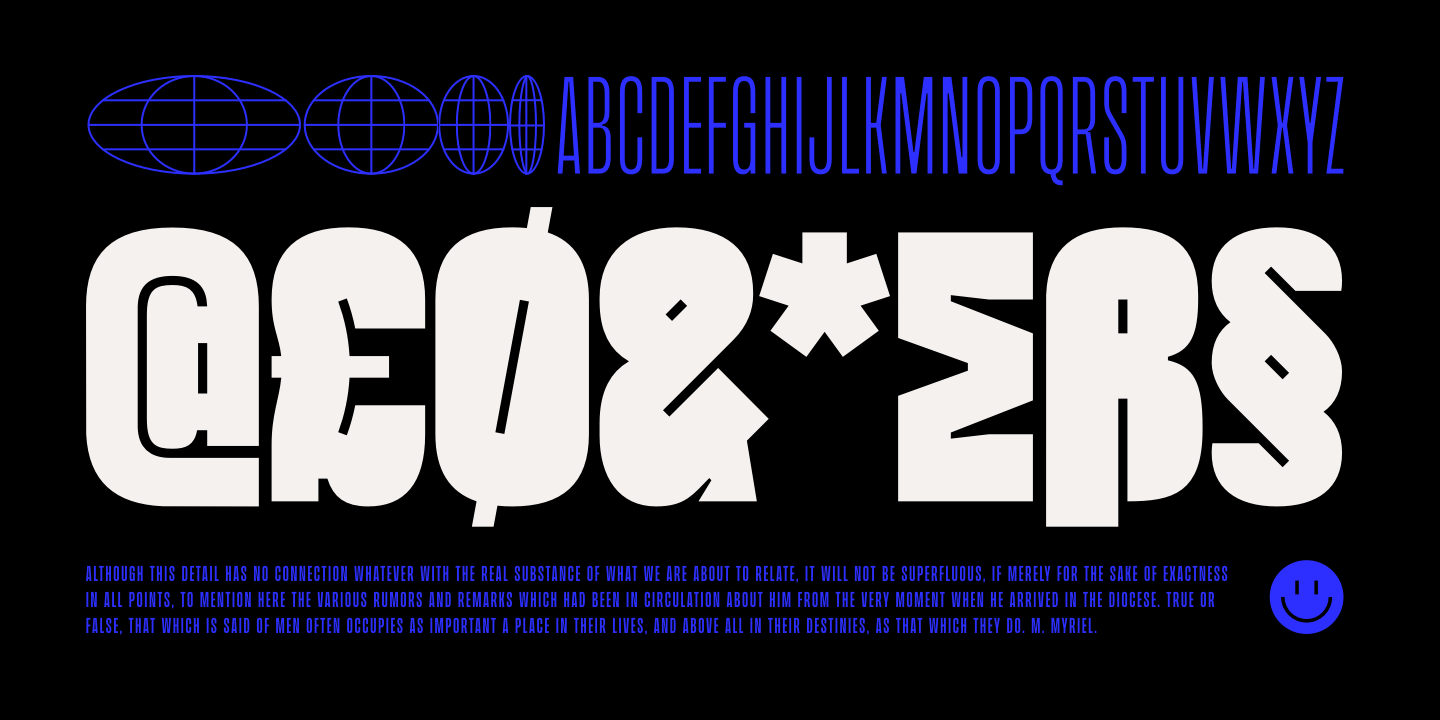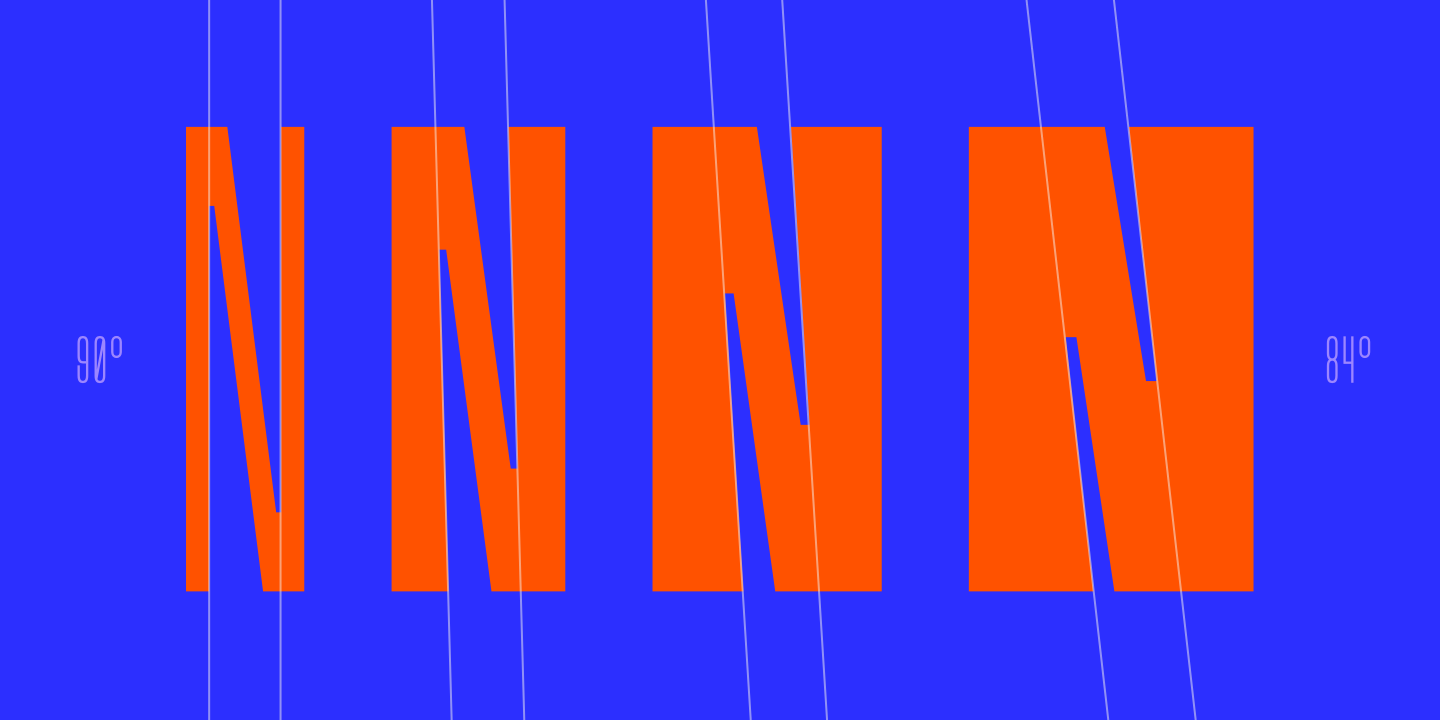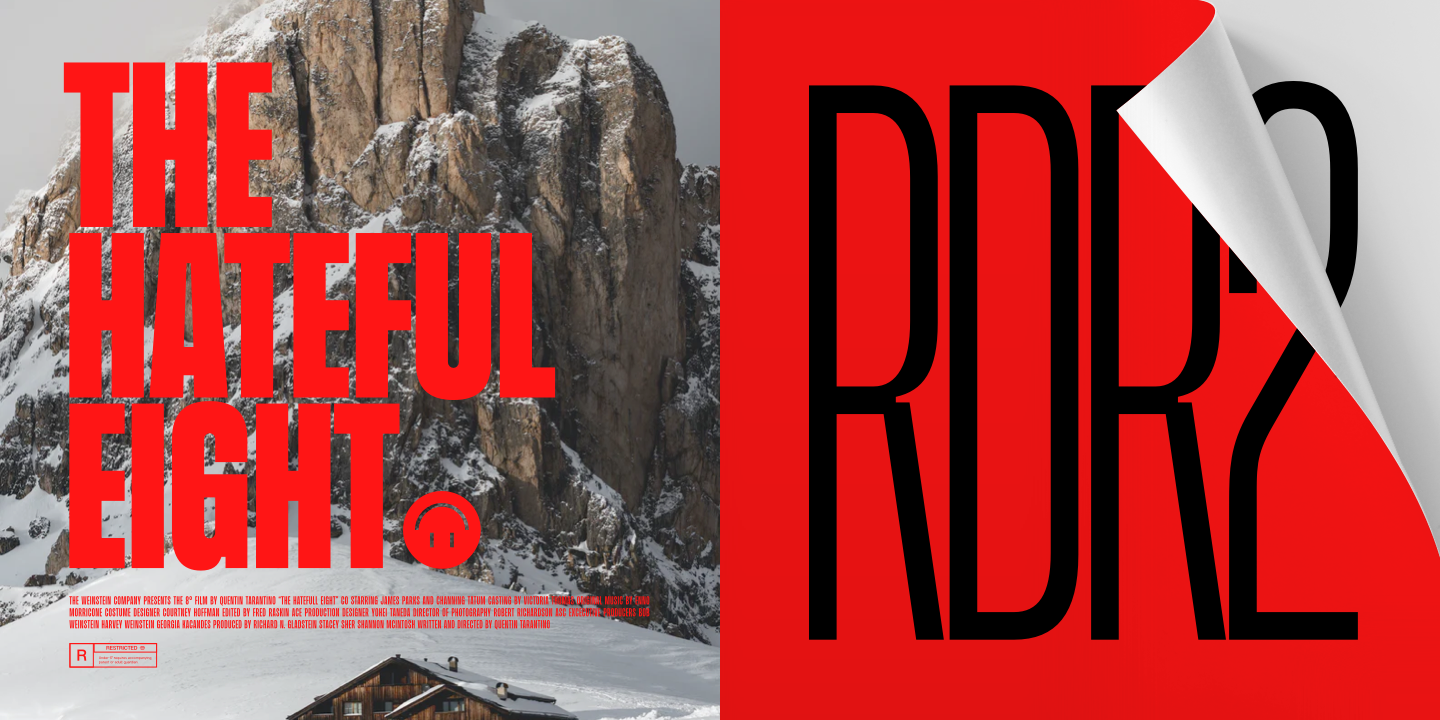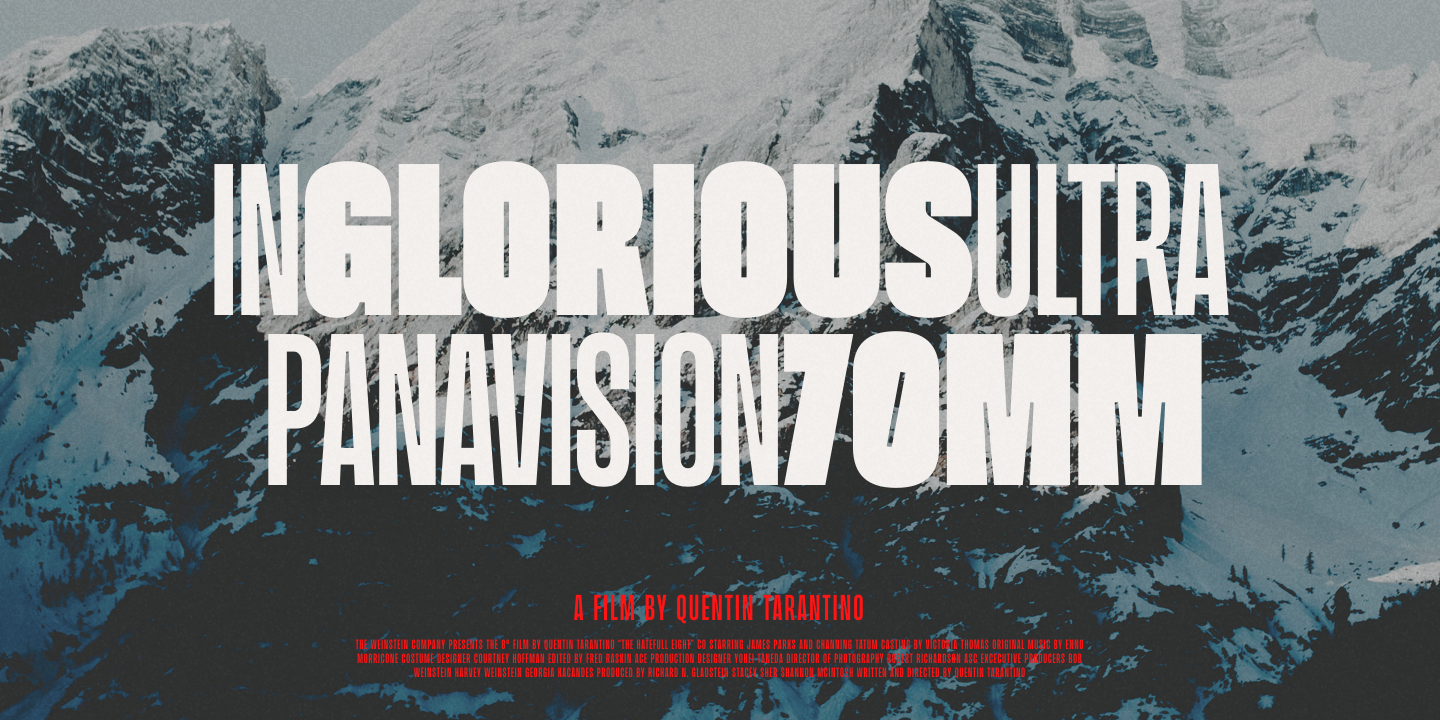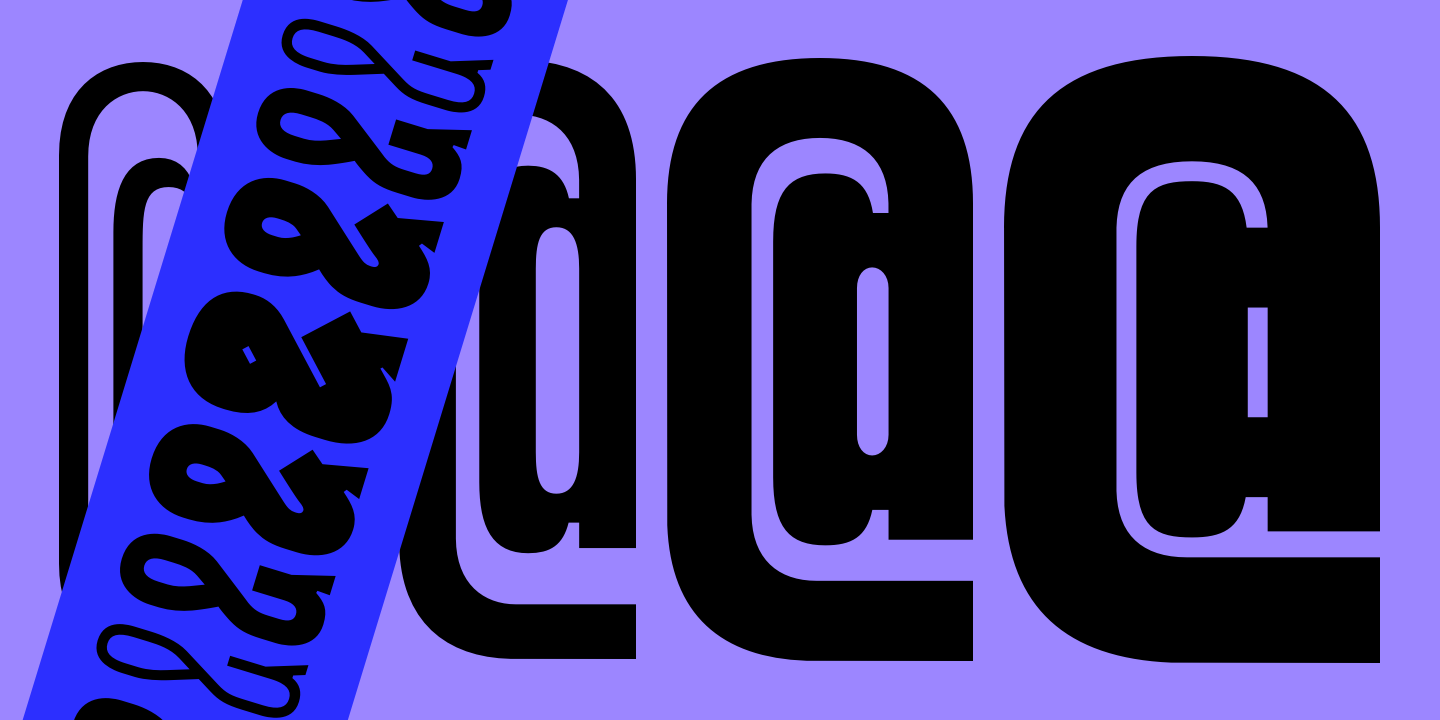
Beni is a bold & strong sans serif font family beautifully crafted to perform in short headlines in posters or contemporary interface design. Each character has been optically adjusted for maximum effect in the space between; as such, this is a strong contender for movie posters, titling, album artwork, and any design project that needs a clean sans serif that makes an impact wherever it is applied.
This type family is available in four unique weights that stand well apart from one another in visual style. Beni Light is the runway model of the family, standing with a narrow posture and towering height. It’s a fantastic choice for conveying a message in a limited horizontal space.
Beni Regular and Beni Bold are shorter in stature but both pack a punch, carrying bold strokes that speak with confidence and offer great legibility. The heaviest of the heavy, Beni Black is the super-bold, go-to type design for projects that need an impossibly strong type design at the helm.
Beni extends multilingual support to Basic Latin, Western European, Euro, Catalan, Baltic, Turkish, Central European, Pan African Latin, Igbo Onwu, and Basic Greek for design projects intended for an international audience.